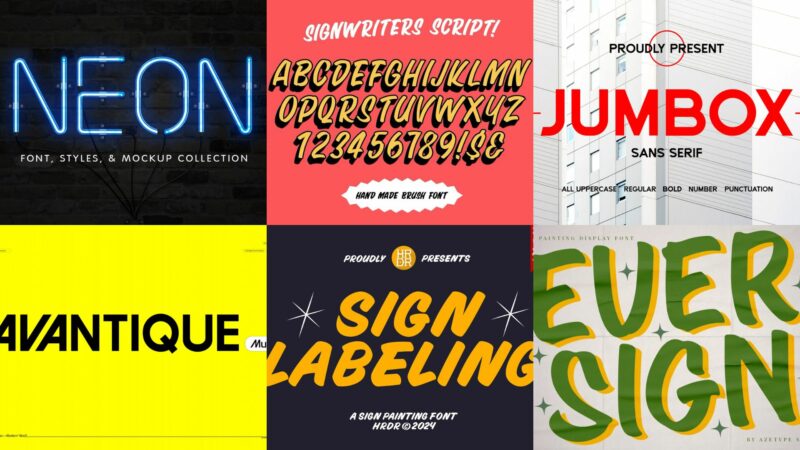
37+ Best Fonts for Signs in 2026
When it comes to designing signs, there’s one decision that can make or break your entire project: choosing the best fonts for signs.
Think about it – you could have the most eye-catching design, the perfect color scheme, and premium materials, but if people can’t read your sign from a distance, none of that matters. And with hundreds of thousands of fonts available today, picking the right one can feel completely overwhelming.
Here’s the truth: while creativity is important in design, choosing fonts for signs isn’t the time to get wildly experimental. The most successful signs almost always rely on tried-and-true fonts that prioritize readability over novelty. After all, a sign has one primary job – to be read.
Here are the best, most legible fonts for signs right now:
Frank
Frank is a modern sans-serif typeface with a squarish appearance. Its clean lines and geometric shapes make it ideal for contemporary designs, particularly in digital interfaces and branding projects.
Zonda
Zonda is a geometric sans-serif font with a strong display character. Its clean, modern aesthetics make it perfect for headlines, logos, and branding projects that require a bold, contemporary look.
BROOKLYN
BROOKLYN is a minimal geometric sans-serif typeface designed for headings and decorative use. Its clean lines and balanced proportions make it an excellent choice for modern, minimalist designs in both print and digital media.
Sign Labeling
Sign Labeling is an elegant script font that mimics hand-painted signage. Its fluid strokes and vintage charm make it perfect for creating designs with a handcrafted, artisanal feel, ideal for branding, packaging, and editorial projects.
Ever Sign
Ever Sign is a handwritten script font designed to emulate sign painting. Its authentic, hand-crafted appearance makes it ideal for projects requiring a personal touch, such as branding, packaging, and vintage-inspired designs.
The Sign Paintoh
The Sign Paintoh is a retro-inspired script font that captures the essence of vintage sign painting. Its nostalgic charm and handcrafted feel make it perfect for creating designs with a classic, timeless appeal.
Captain Casual
Captain Casual is a sans-serif font with a hand-painted quality. Its relaxed, approachable style makes it suitable for casual branding, signage, and designs that require a friendly, personable touch.
Citro
Citro is a playful, vintage-inspired sign painter typeface. Its decorative nature and whimsical character make it ideal for creating eye-catching headlines, logos, and designs that require a touch of nostalgia and fun.
Liber v2
Liber v2 is a geometric sans-serif font inspired by classic typefaces like Futura. Its clean lines and balanced proportions make it versatile for both body text and headlines, suitable for modern and minimalist design projects.
Andral
Andral is a modern sans-serif font with a clean and professional appearance. Its versatile design makes it suitable for a wide range of applications, from corporate branding to digital interfaces and editorial layouts.
Brighton
Brighton is a unique display sans-serif font with a modern edge. Its distinctive character and strong presence make it ideal for creating impactful logos, headlines, and branding materials that demand attention.
BERLIN
BERLIN is a minimal, geometric sans-serif typeface designed for both print and web use. Its clean lines and modern aesthetics make it perfect for contemporary designs, particularly in digital interfaces and minimalist branding projects.
Marvelous
Marvelous is a condensed sans-serif font that offers a bold, space-efficient design. Its narrow proportions make it ideal for headlines, posters, and designs where space is at a premium while maintaining strong legibility.
Confine
Confine is a modern sans-serif font with a sleek and refined appearance. Its clean lines and balanced proportions make it suitable for a wide range of design applications, from branding to editorial layouts.
Hidone
Hidone is a versatile sans-serif font family designed for branding and corporate use. Its clean, professional appearance and range of weights make it suitable for both body text and headlines across various media.
Actual
Actual is a neo-brutalist font inspired by Helvetica. Its bold, no-nonsense design makes it perfect for creating impactful headlines and designs that embrace the raw, honest aesthetic of brutalism.
Futuru
Futuru is a neo-grotesque variable font designed with a futuristic, tech-oriented aesthetic. Its modern appearance and variable capabilities make it ideal for cutting-edge designs and digital interfaces targeting younger audiences.